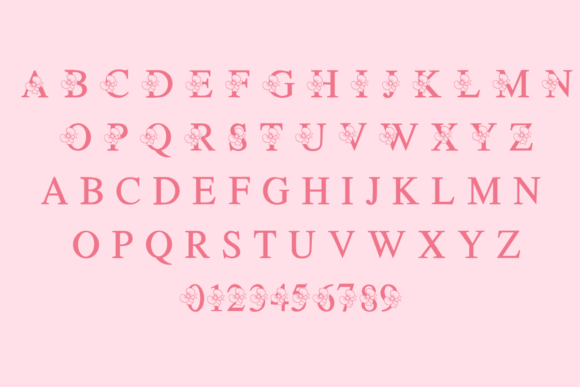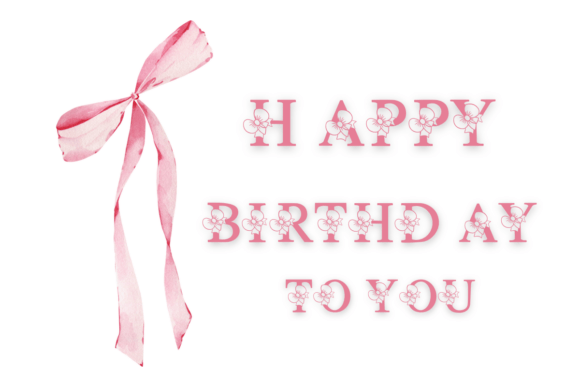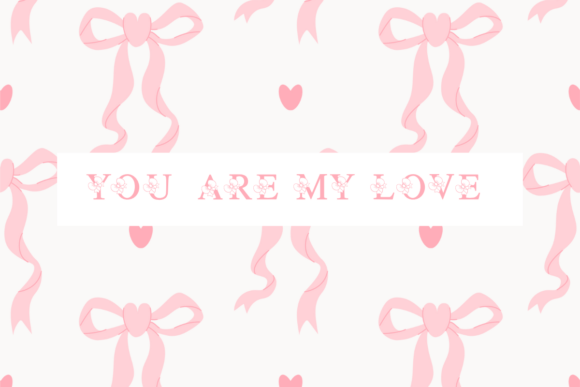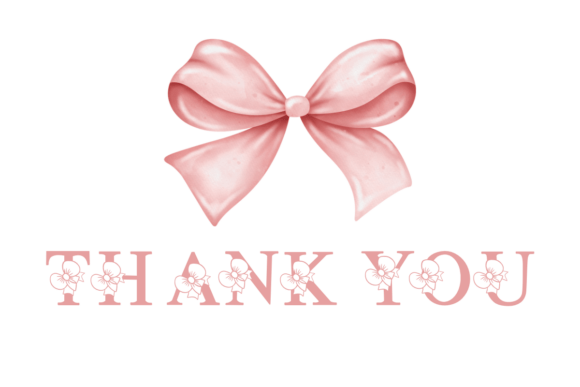
The Sweetest Font You’ll Ever Meet: Cute Bow
Have you ever been working on a design project, and suddenly, you’re stuck on finding the perfect font? I remember a recent experience where I was designing a baby shower invitation, and I just couldn’t find a font that captured the sweet, playful vibe I was going for. That’s when I stumbled upon Cute Bow, a charming decorative font that instantly won my heart.
First Impressions: A Lovable, Handcrafted Vibe
Cute Bow is more than just a font – it’s an experience. With its delicate floral details and pretty bows, it’s the perfect addition to any design that needs a touch of sweetness. Whether you’re working on girly branding, party invitations, baby shower decor, or anything that calls for a soft and playful aesthetic, this font is sure to deliver.
- ✨ Delicate floral details that add a touch of elegance
- ✅ Pretty bows that make your designs feel handcrafted
- 🎉 Perfect for projects that need a playful, whimsical vibe
- 💕 Great for girly branding, party invitations, and baby shower decor
⚠️ While Cute Bow is an amazing font, it’s not without its limitations. For example, some of the more intricate details might not display well at smaller font sizes. 🤔 Additionally, the font’s playful nature might not be suitable for more formal or corporate designs.
The Story Behind Cute Bow
Cute Bow was designed with one goal in mind: to bring a touch of sweetness to your designs. The font’s creator was inspired by the delicate details and playful patterns found in vintage children’s books and party decorations. The result is a font that’s both elegant and whimsical, perfect for designs that need a lovable, handcrafted vibe.
Q: Is Cute Bow suitable for body text?
A: While Cute Bow is a beautiful font, it’s best suited for headlines, titles, and short paragraphs. Its playful nature might not be suitable for longer blocks of text.